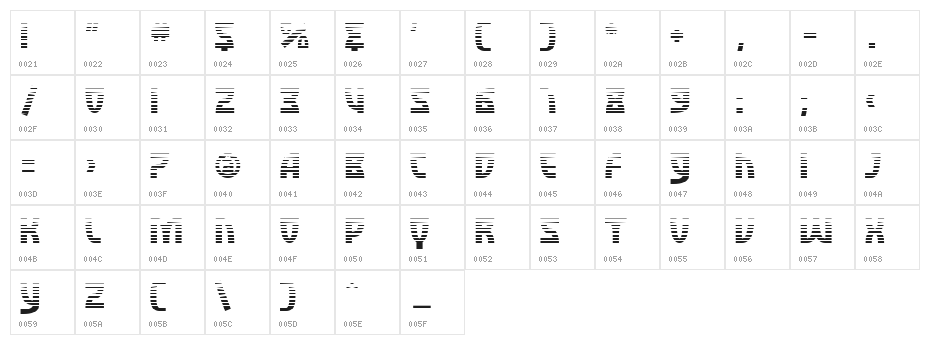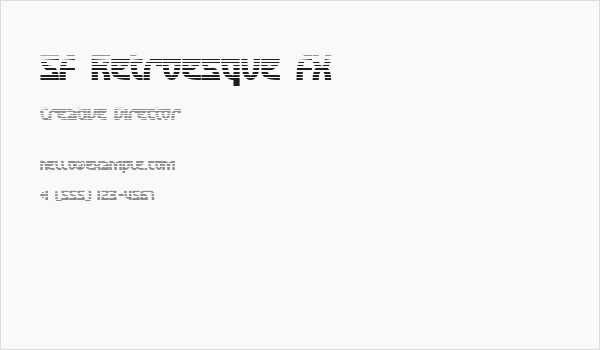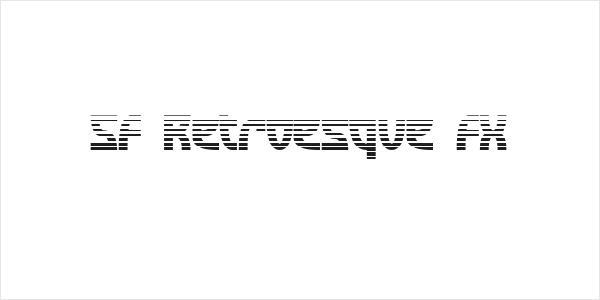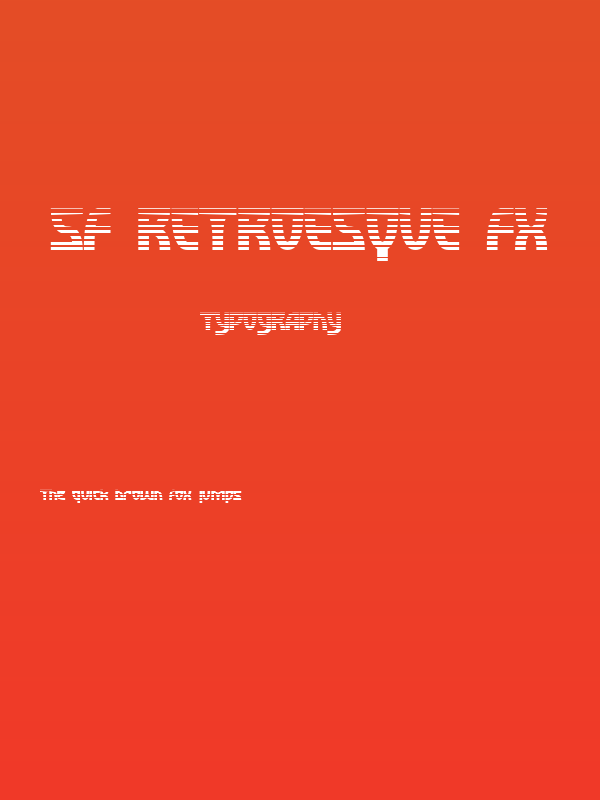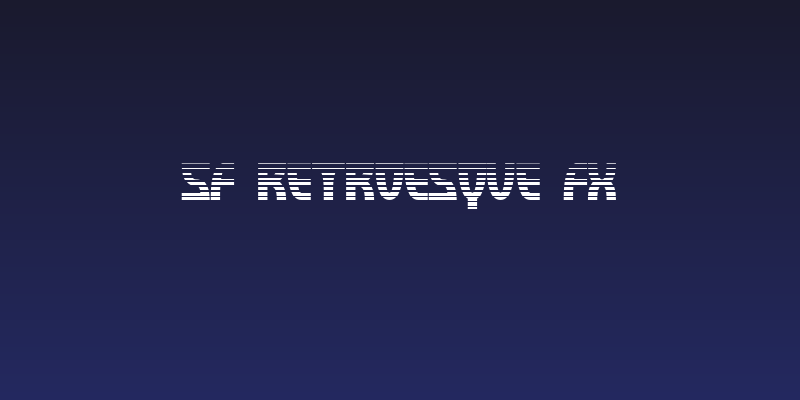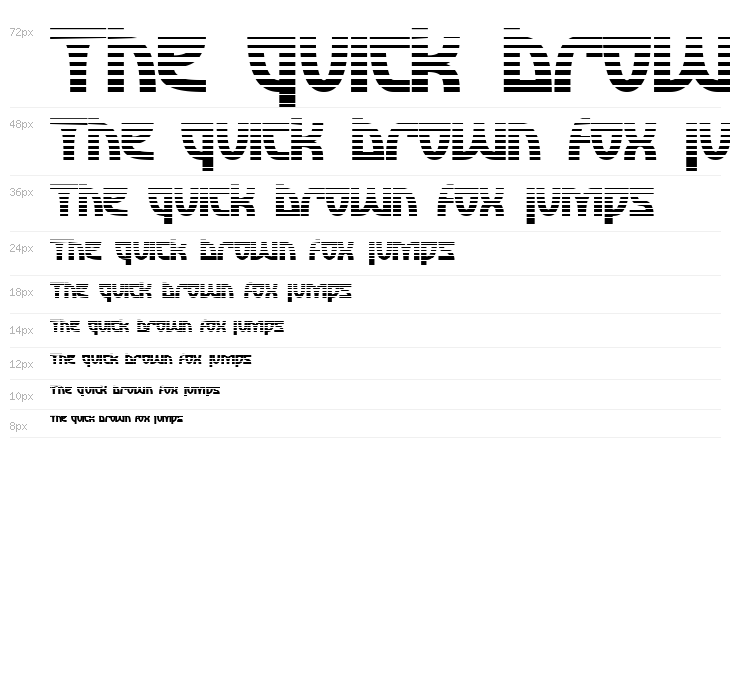
SF Retroesque FX Font
SF Retroesque FX Description
This font features a unique, retro-inspired design characterized by horizontal lines that create a segmented appearance. The bold, geometric shapes give it a futuristic and digital feel, reminiscent of early computer graphics or sci-fi aesthetics. Each character is distinct, with sharp angles and a consistent pattern of horizontal stripes that add a sense of movement and energy. The uppercase and lowercase letters maintain a uniform style, while the numbers and special characters seamlessly integrate into the overall design. This font's striking visual impact makes it ideal for projects that require a bold, eye-catching typeface.
| Overall Style | Retro, Futuristic |
| Proposed Projects | Ideal for sci-fi themed designs, retro posters, video game graphics, and digital art projects. |